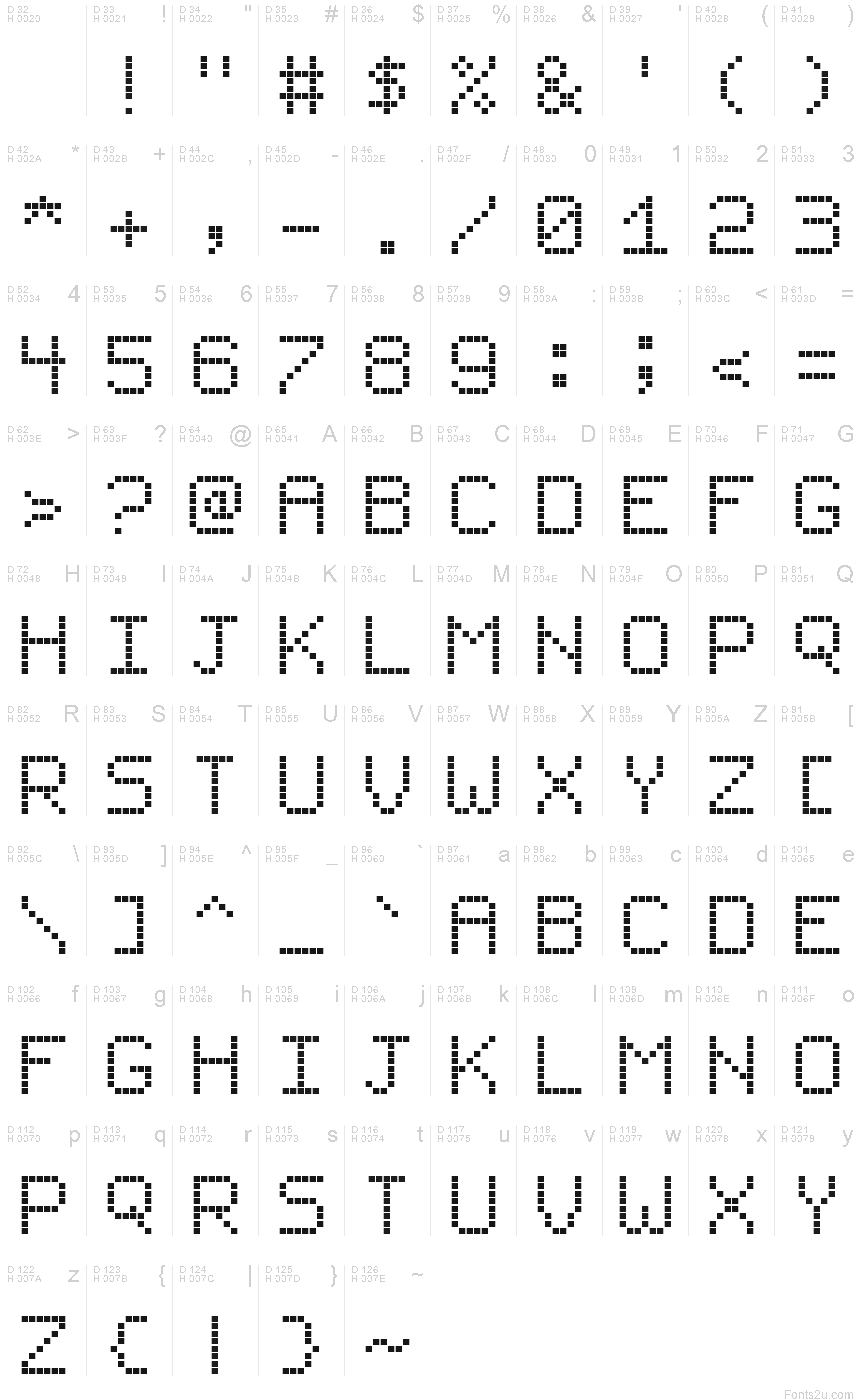
Small LCD Sign Regular
This is LCD font based on LCD signs.
Designer description: This is LCD font based on LCD Signs.
Now with more accented characters and symbols, an alternate A can be maked using U+00A0 (no-break space).